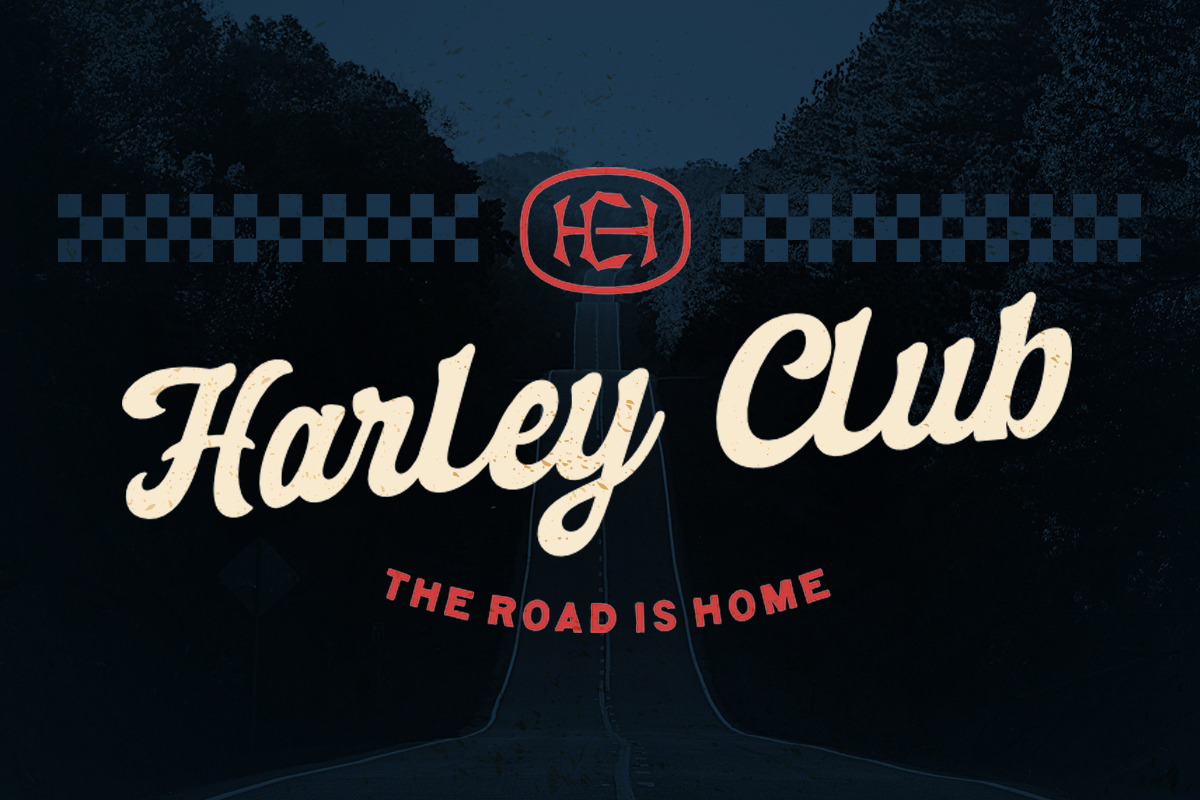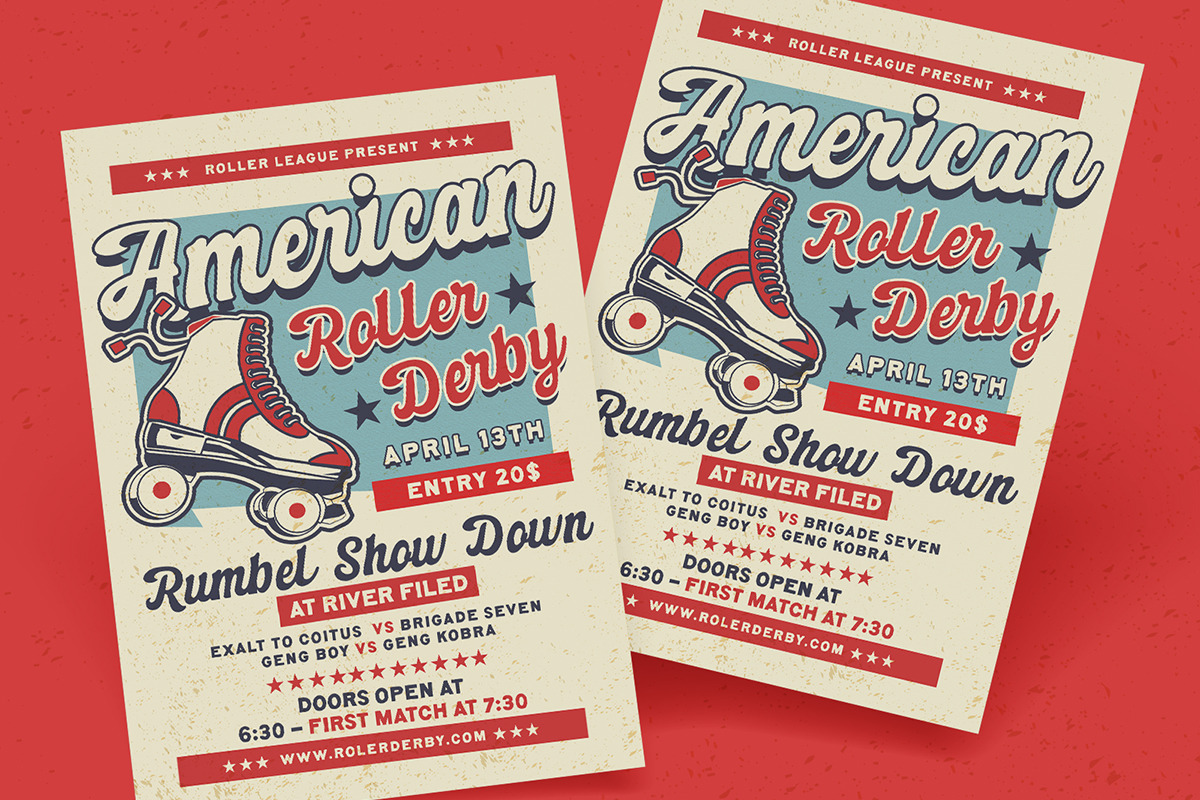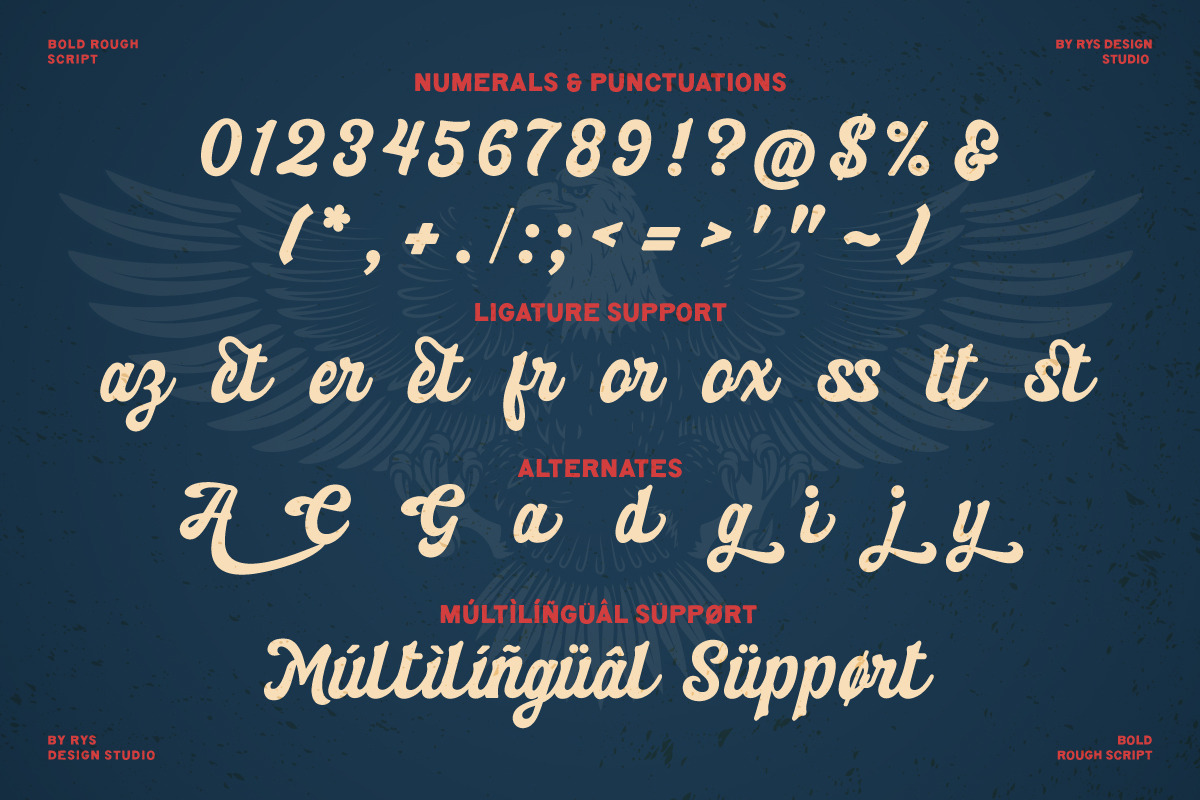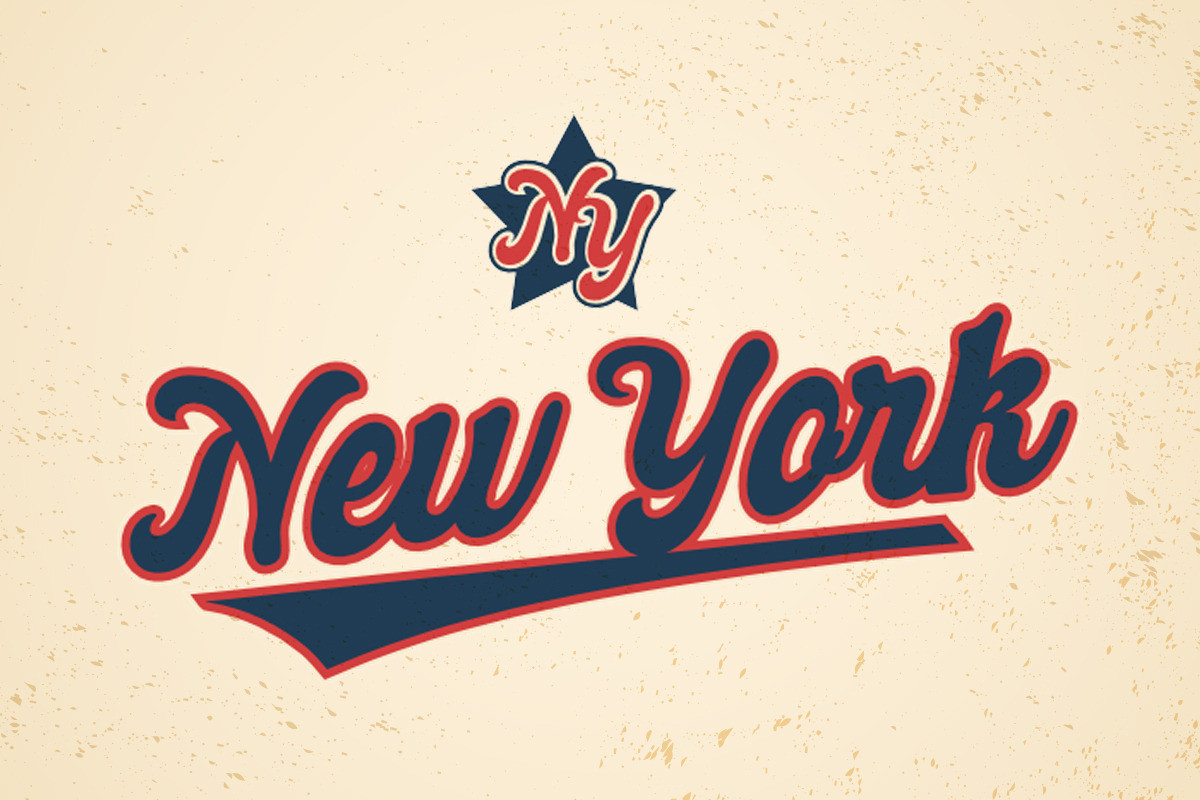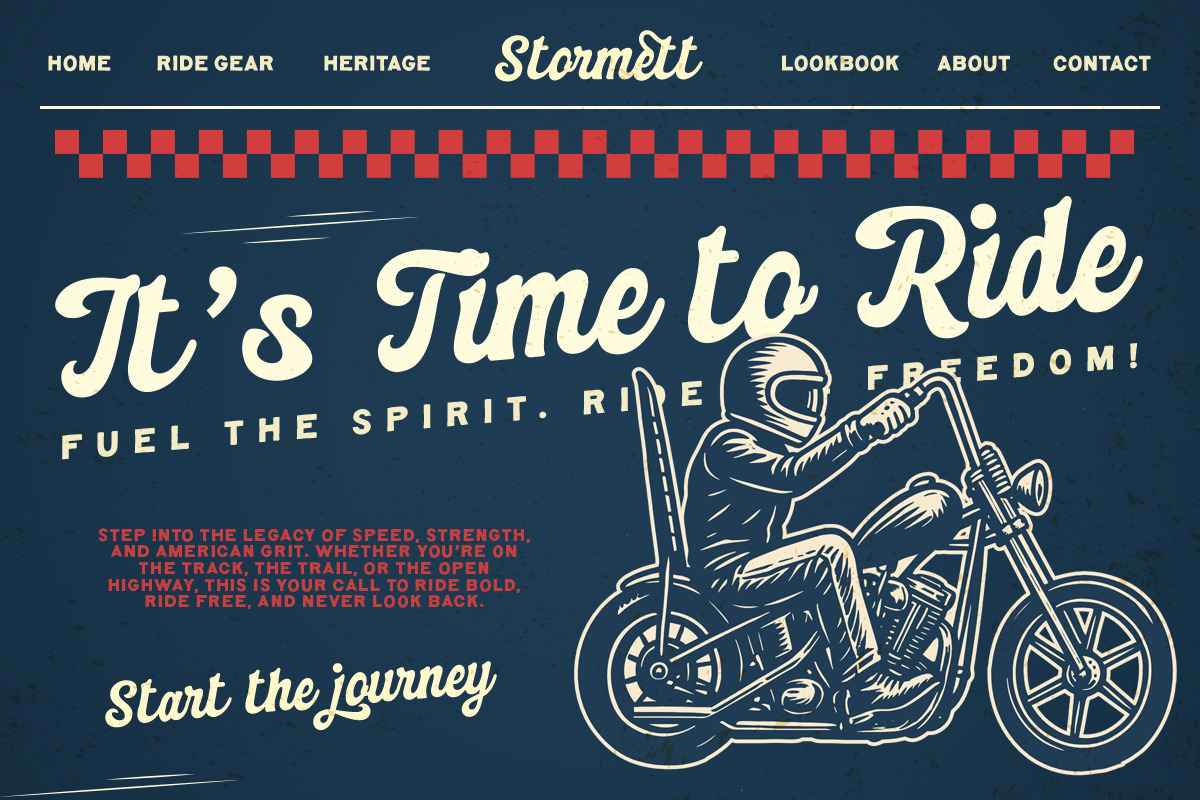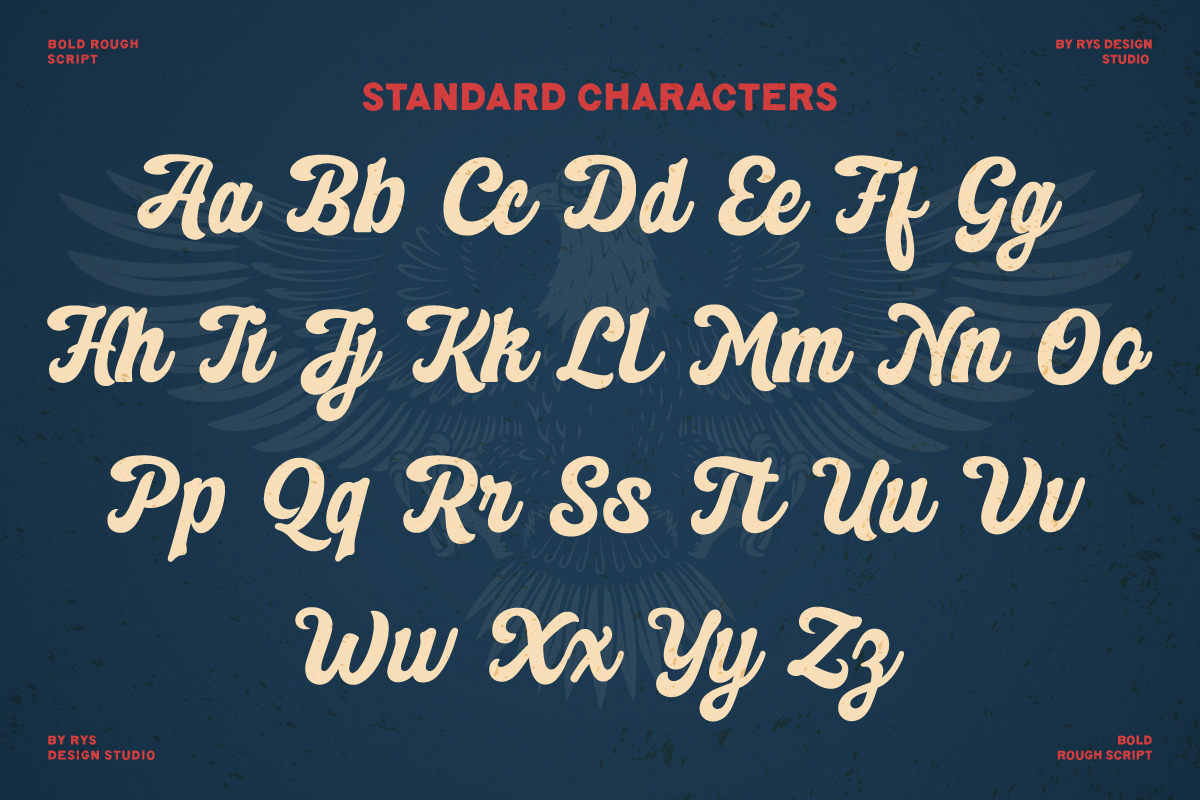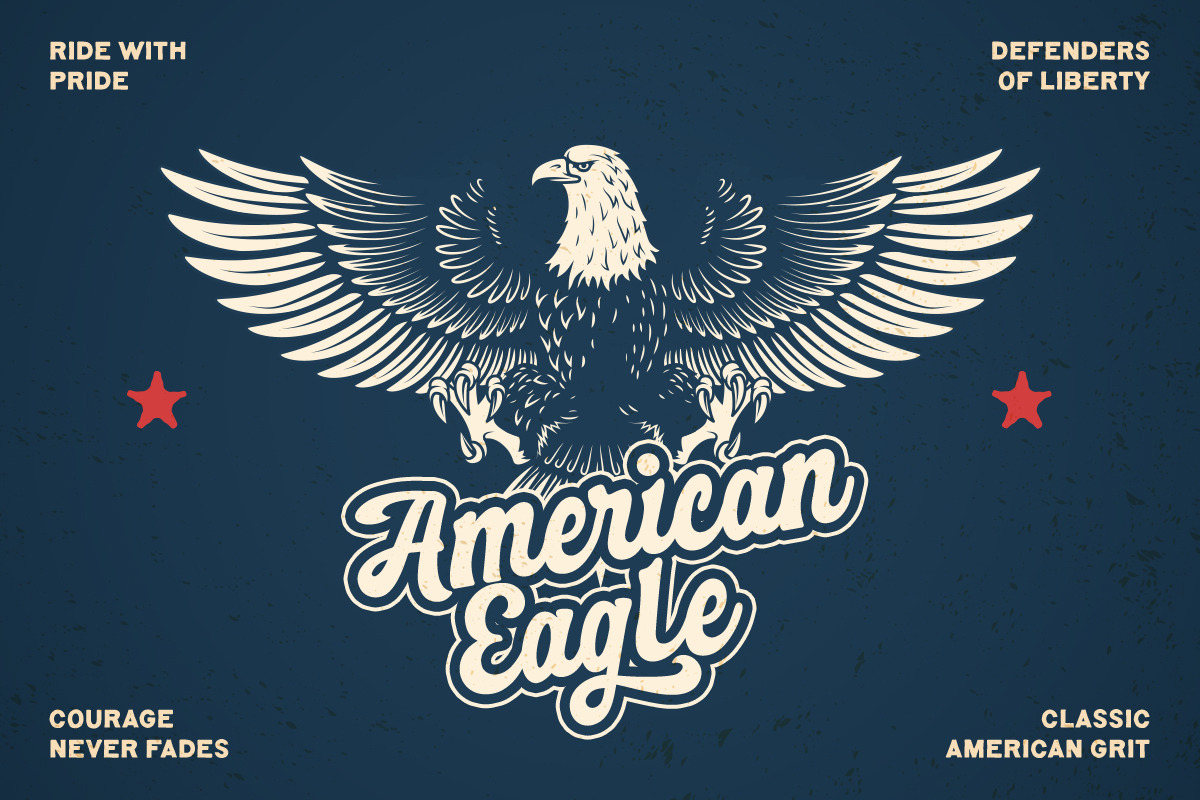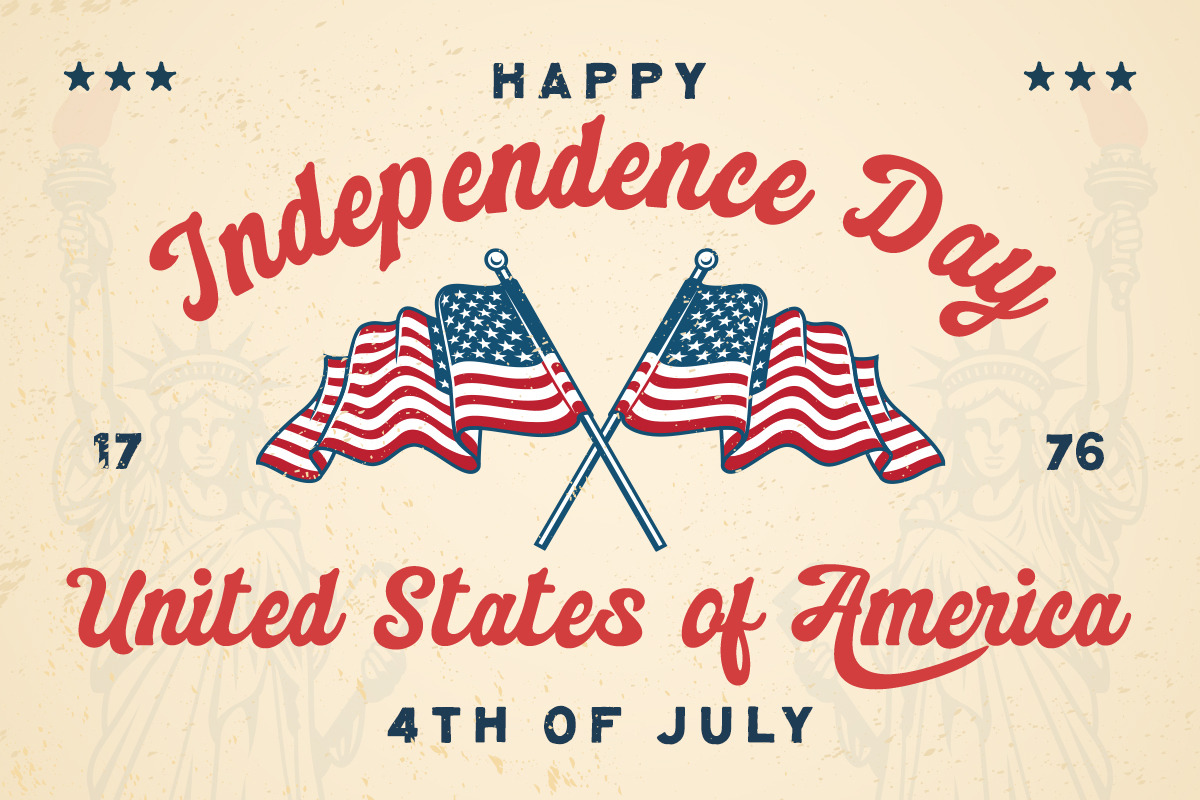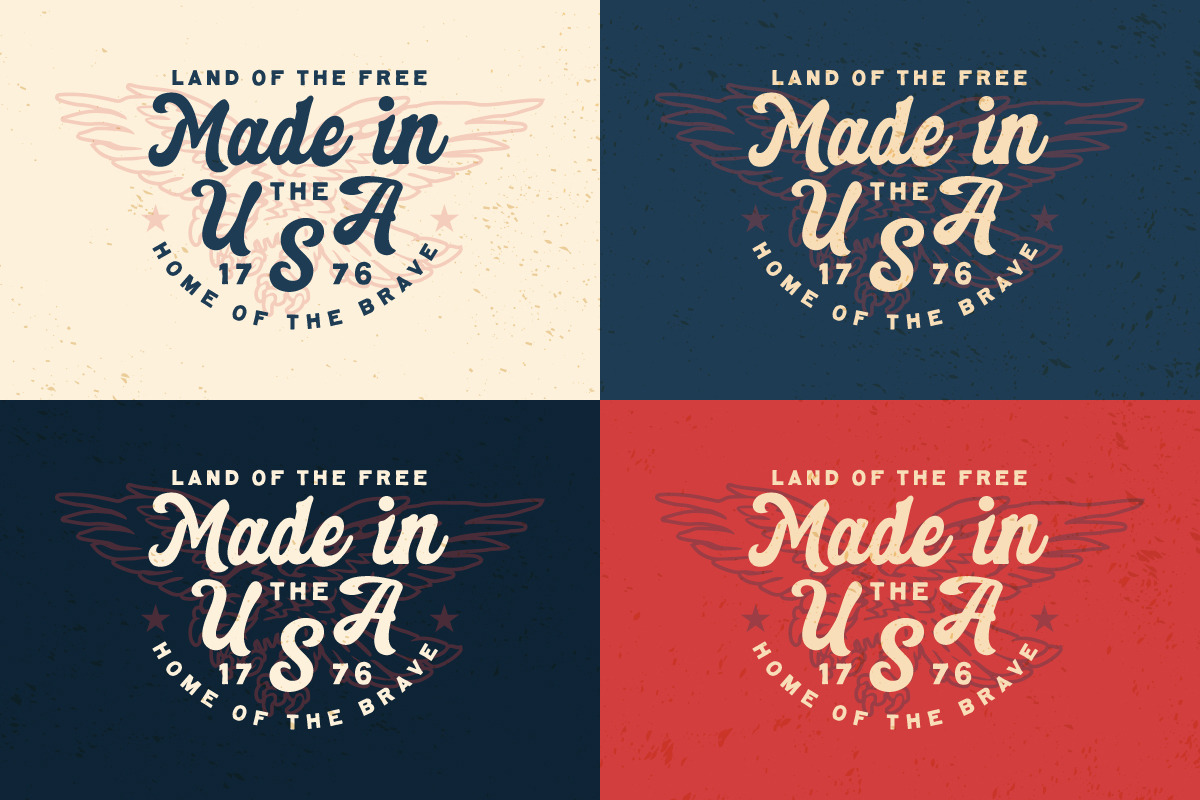
American Houpmer – Bold Rough Script
Introducing RYS AMERICAN HOUPMER A Bold Rough Script Handdrawn Typeface
American Houpmer is a bold and rough script font that captures the fighting spirit of America. Inspired by handdrawn lettering that embodies the human touch from the retro era, this font is perfect for designs that need to stand out, like t-shirts, posters, and logos. It’s your go-to choice to add a rebellious touch to your brand.
American Houpmer delivers a handcrafted, gritty, and fearless vibe that demands attention!
- Simple Ligature and Alternate